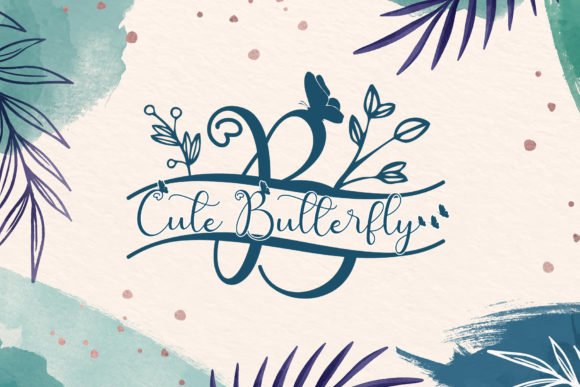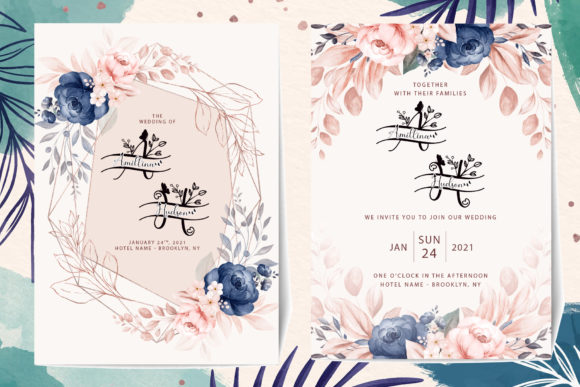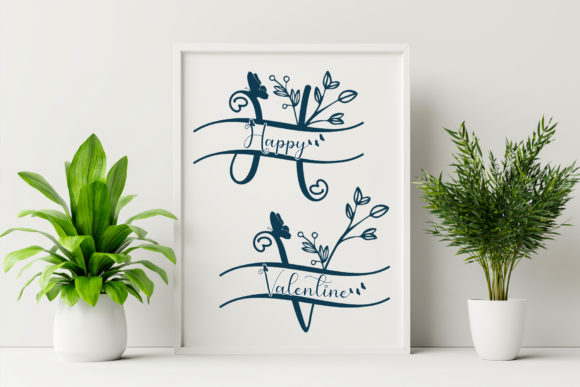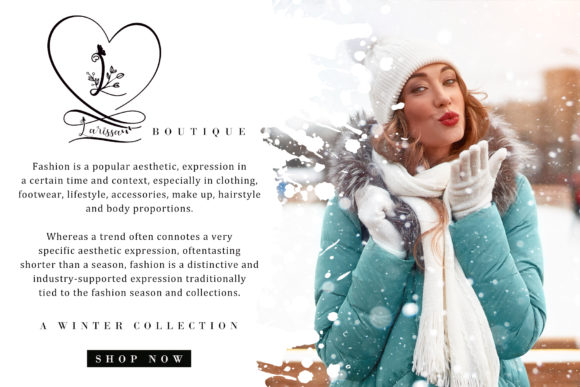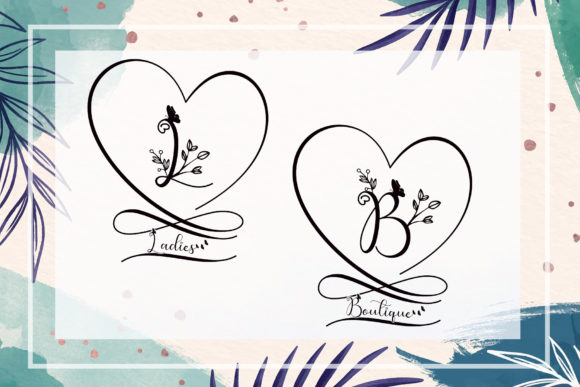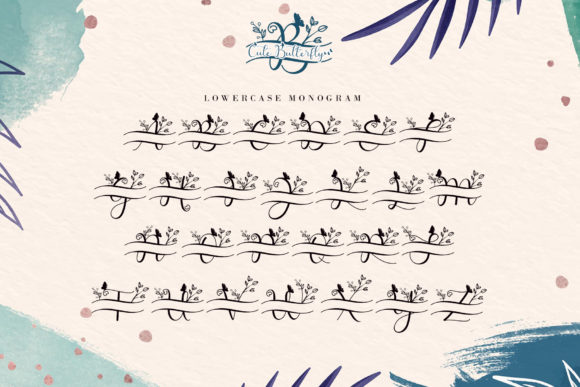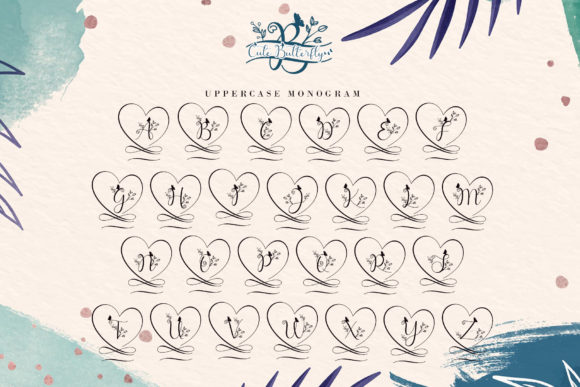
Capture the Whimsy of Romance with the Cute Butterfly Monogram Font
Have you ever been captivated by the delicate dance of butterflies in a lush garden, their colorful wings fluttering in the warm sunlight? As a designer, you’ve likely experienced that same sense of enchantment when discovering a unique font that captures the essence of romance and whimsy. The Cute Butterfly Monogram Font is one such treasure, a beautiful script font that combines elegant typography with lovely butterfly ornaments.
This charming font is perfect for creating beautiful wedding invitations, thank you cards, logos, business branding, and any design that requires a handwritten touch. With its PUA encoded features, designers can easily access the available glyphs and swashes, unlocking a world of creative possibilities. Whether you’re a seasoned pro or a budding designer, the Cute Butterfly Monogram Font is sure to inspire your next project.
- Font Family: Cute Butterfly Monogram Font is a unique, hand-drawn monogram font designed for creative and playful purposes.
- Unique Characteristics: The font features intricate butterfly designs and floral patterns, making it perfect for wedding invitations, baby shower invitations, and other special occasions.
Cute Butterfly Monogram Font Review
I recently had the chance to work with the Cute Butterfly Monogram Font, and I must say it’s a delightful addition to any design project. ✨ The font’s whimsical, hand-drawn feel instantly captures the essence of spring and summer, making it perfect for events, parties, and brand identities centered around nature.
One of the things I love about this font is its versatility. ✨ It’s suitable for both digital and print projects, and its customizability options allow you to fine-tune the design to fit your specific needs. Whether you’re looking to add a playful touch or create a more sophisticated look, the Cute Butterfly Monogram Font delivers.
While the Cute Butterfly Monogram Font is an excellent choice for many projects, there are a few limitations to consider. ⚠️ The font’s size may not be suitable for all text-based projects, as it can become cluttered and difficult to read when used at smaller sizes. Additionally, the font’s complexity may make it challenging to pair with other fonts, especially those with simpler designs.
Overall, the Cute Butterfly Monogram Font is a charming and effective choice for designers looking to add a touch of whimsy to their projects. While it may not be suitable for every project, its unique design and versatility make it a valuable addition to any design toolbox.
The Cute Butterfly Monogram Font is ideal for:
Wedding invitations and decorations
Baby shower decorations and invitations
Personalized stationery and greeting cards